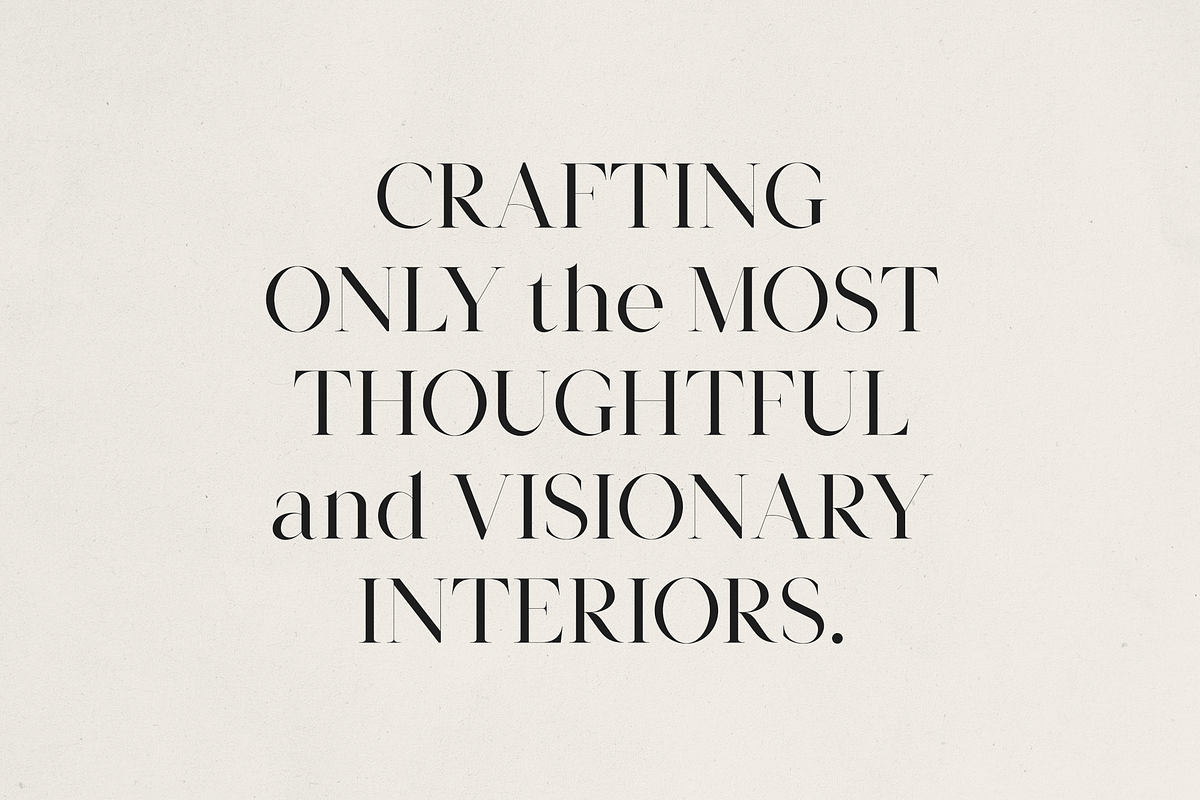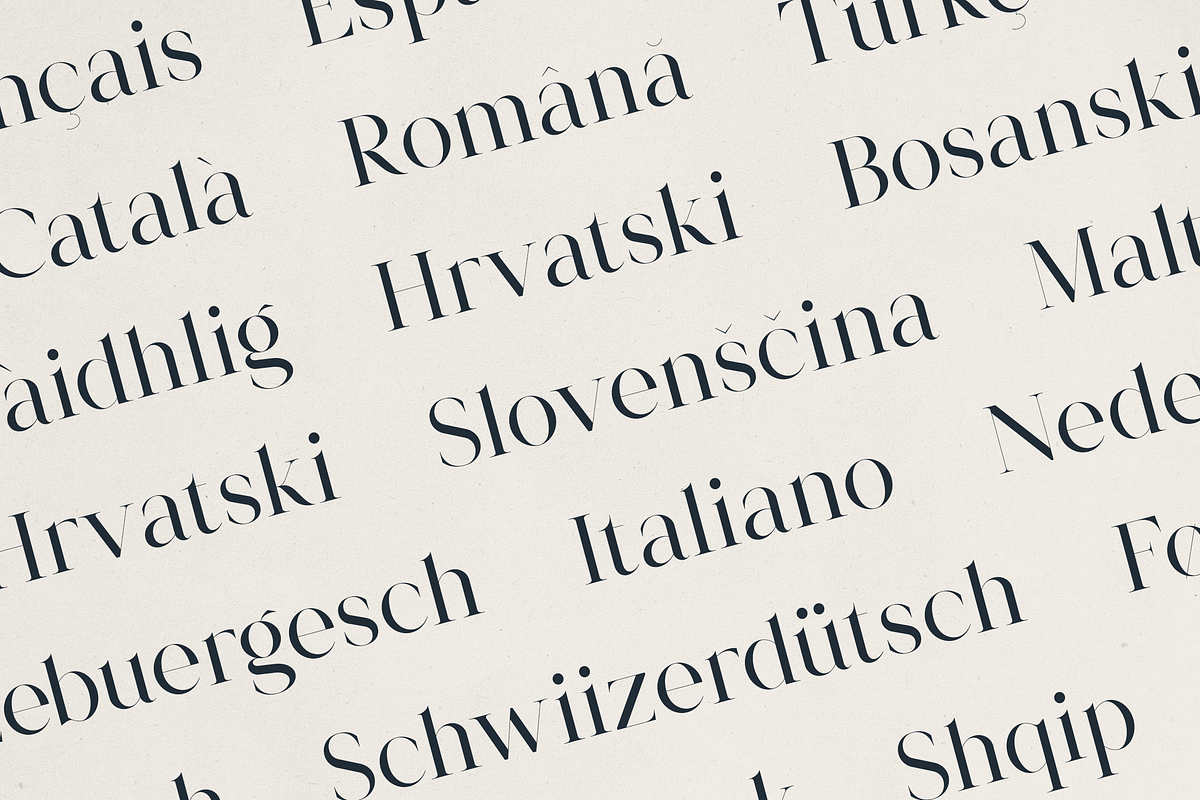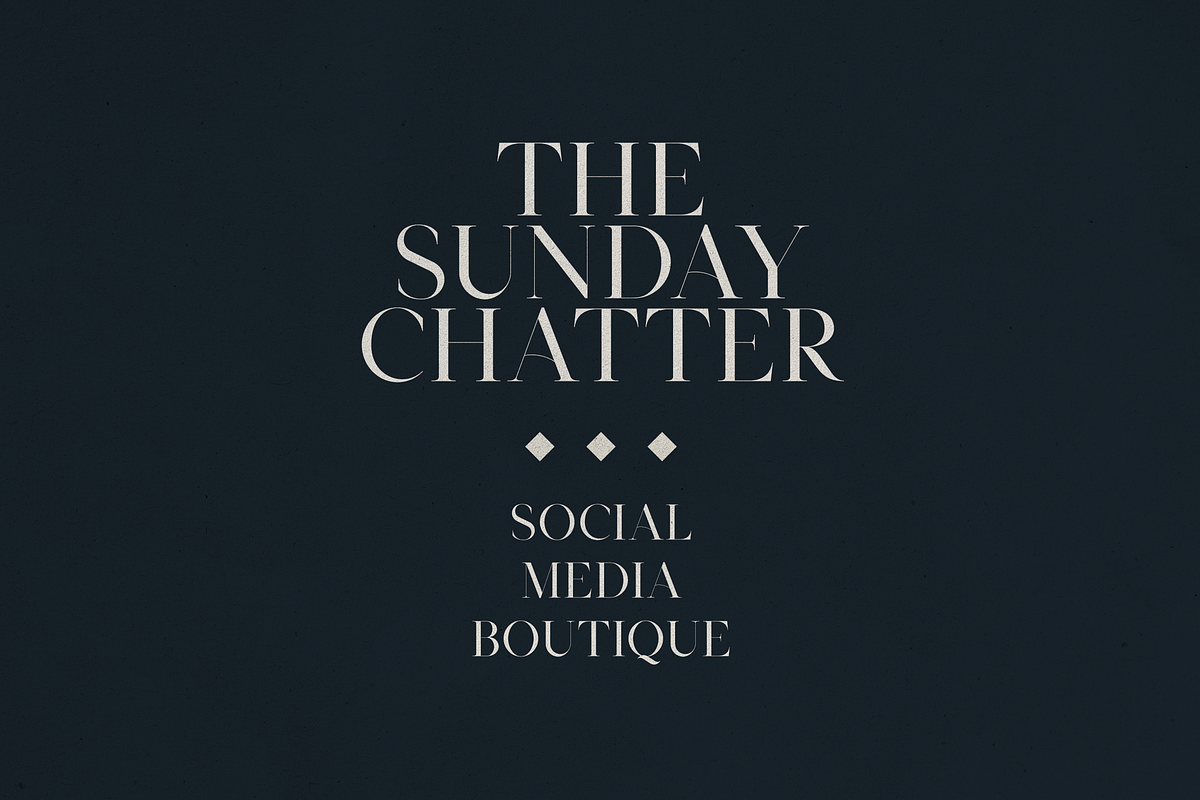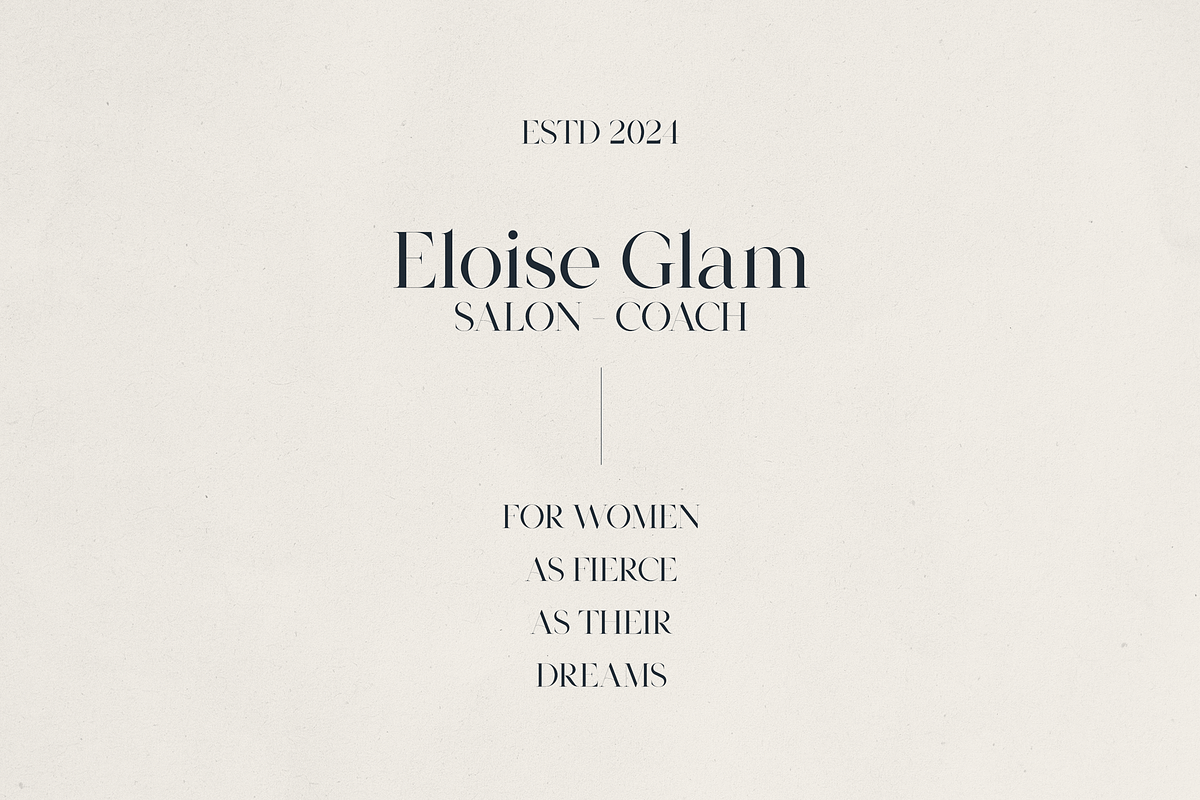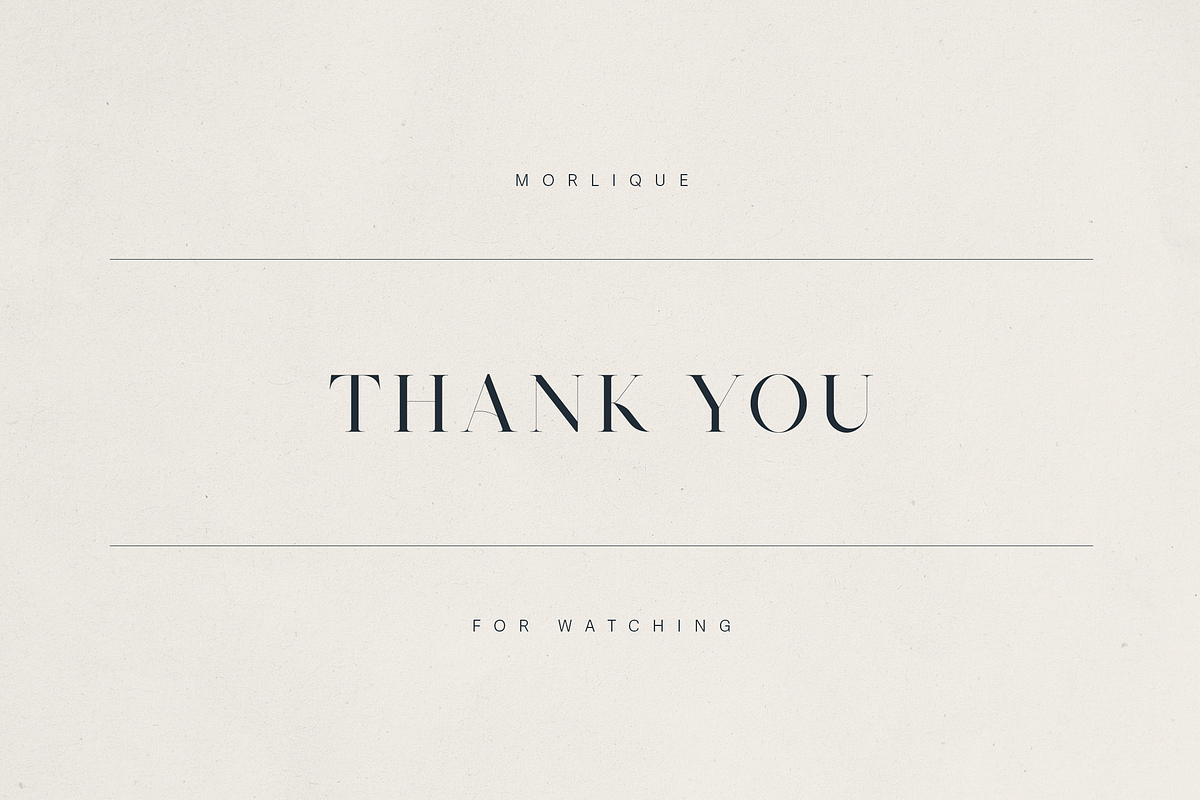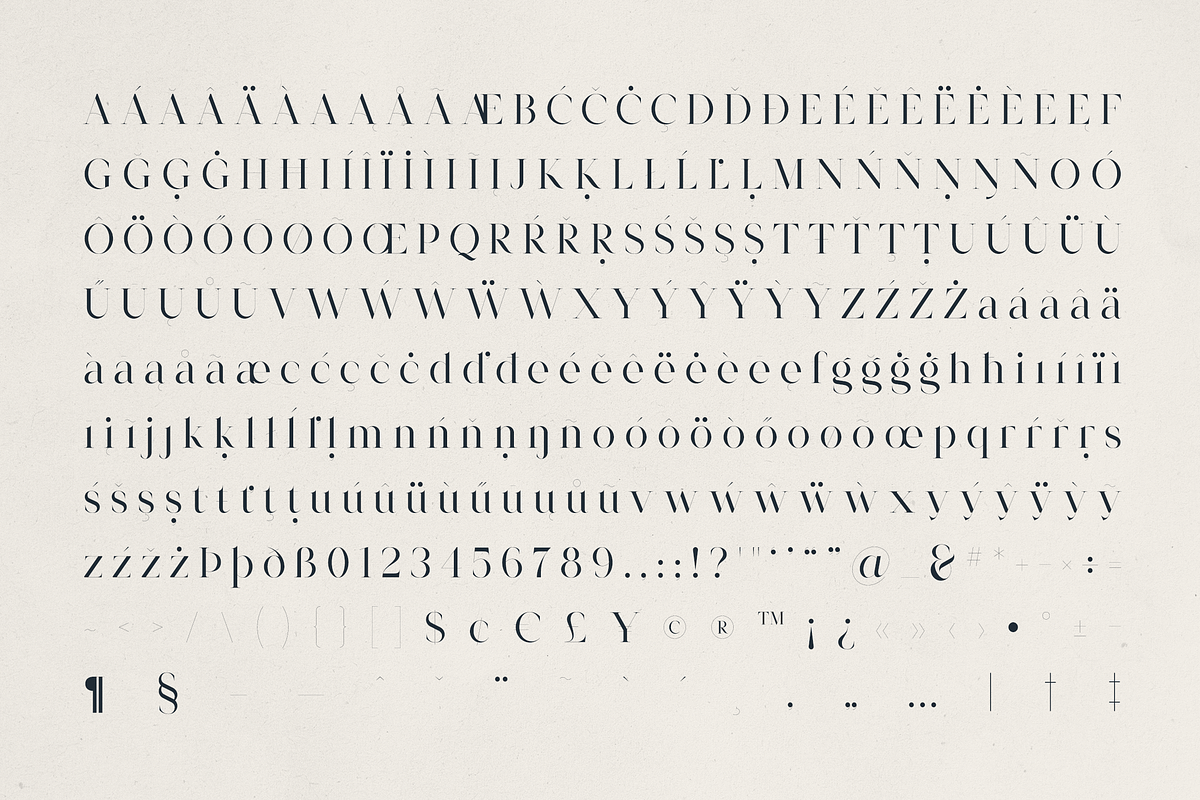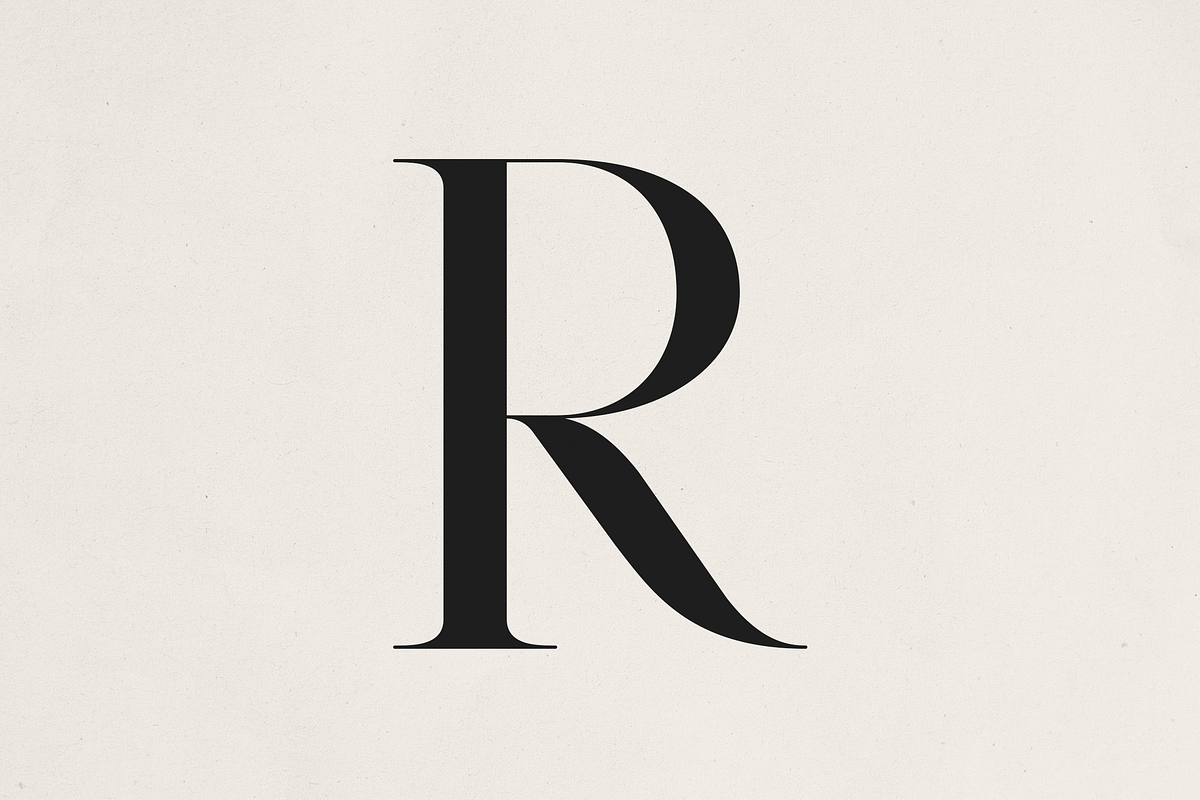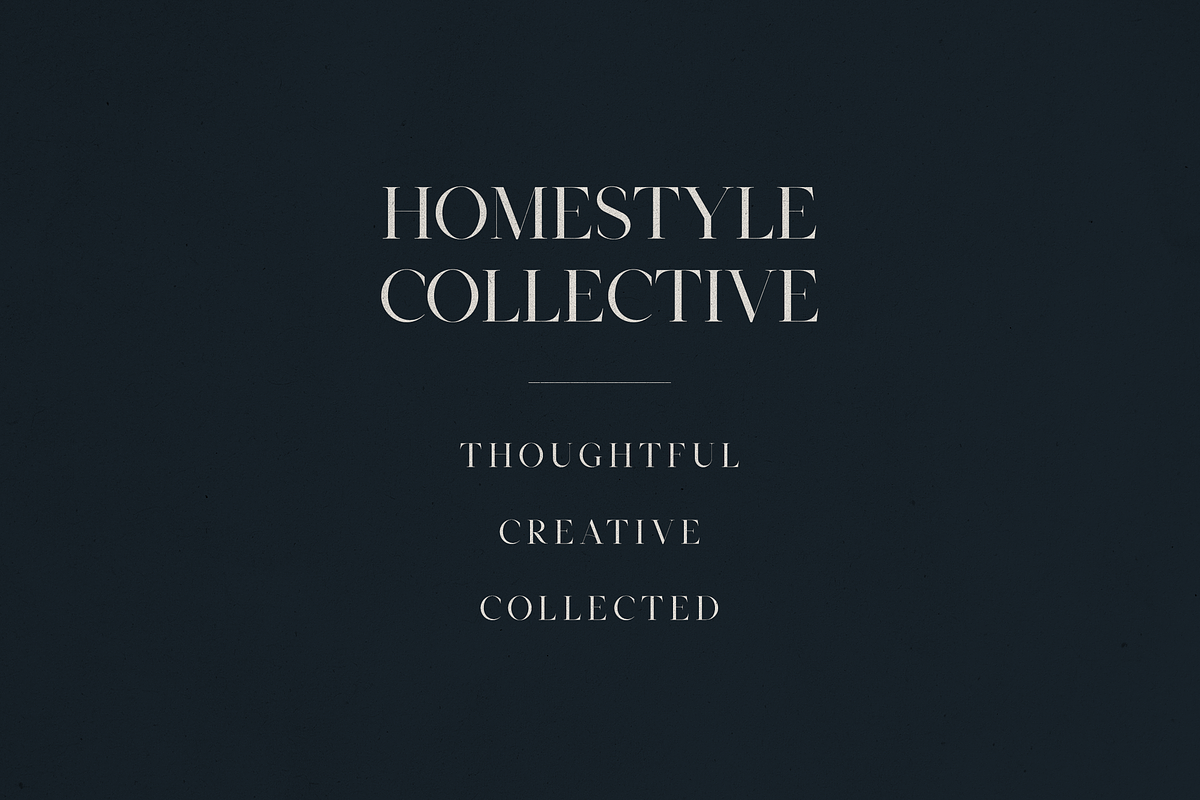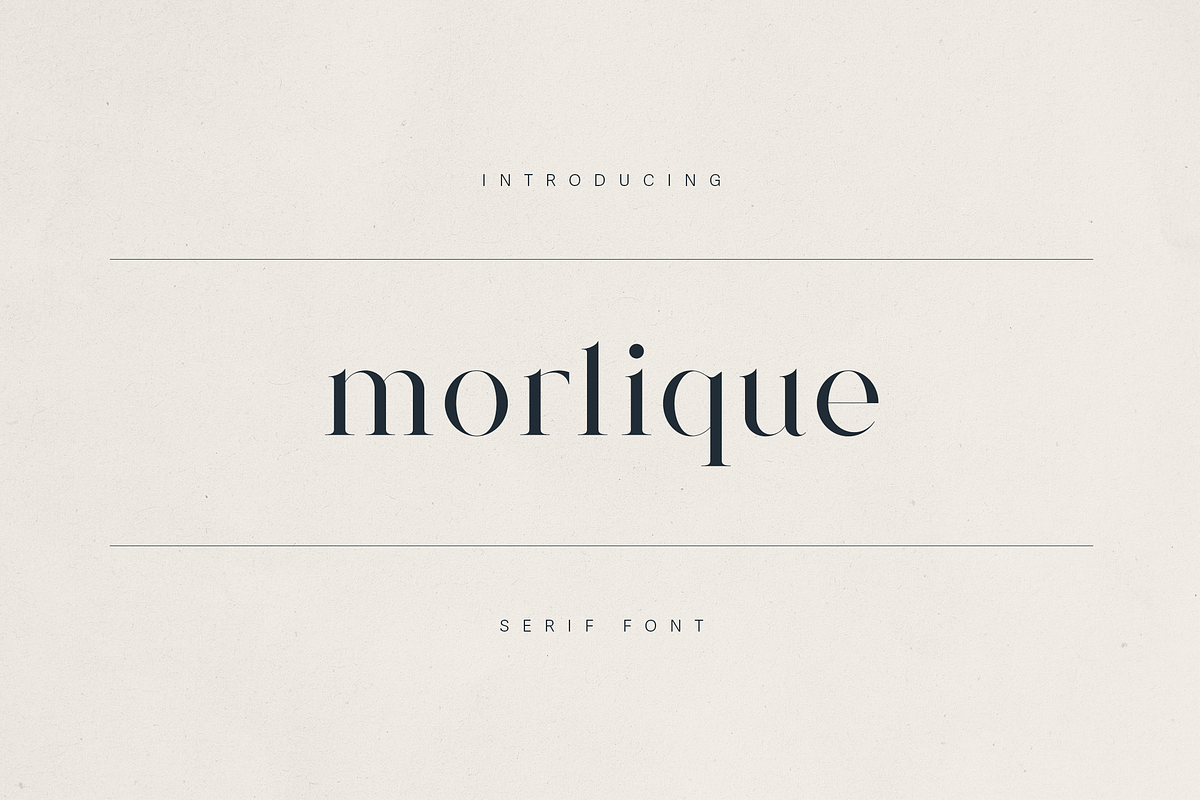
Morlique Serif Font
Morlique Serif Font – Elegant, Timeless Typography for Sophisticated Branding
Discover Morlique, a high-contrast serif font that exudes elegance, refinement, and modern classic appeal. Perfectly suited for branding, editorial design, logos, high-end packaging, and creative businesses, Morlique combines graceful curves with sharp, confident serifs to deliver a timeless and luxurious look. With extensive multilingual support this font is both versatile and distinctive—ideal for designers seeking a polished and elevated aesthetic.
Language Support : Afrikaans, Albanian, Asu, Basque, Bemba, Bena, Breton, Chiga, Colognian, Cornish, Czech, Danish, Dutch, Embu, English, Estonian, Faroese, Filipino, Finnish, French, Friulian, Galician, Ganda, German, Gusi,i Hungarian, Indonesian, Irish, Italian, Jola-Fonyi, Kabuverdianu, Kalenjin, Kamba, Kikuyu, Kinyarwanda, Latvian, Lithuanian, Lower Sorbian, Luo, Luxembourgish, Luyia, Machame, Makhuwa-Meetto, Makonde, Malagasy, Maltese, Manx, Meru, Morisyen, North Ndebele, Norwegian, Bokmål, Norwegian, Nynorsk, Nyankole, Oromo, Polish, Portuguese, Quechua, Romanian, Romansh, Rombo, Rundi, Rwa, Samburu, Sango, Sangu, Scottish, Gaelic, Sena, Shambala, Shona, Slovak, Soga, Somali, Spanish, Swahili, Swedish, Swiss, German, Taita, Teso, Turkish, Upper, Sorbian, Uzbek (Latin), Volapük, Vunjo, Walser, Welsh, Western Frisian, Zulu